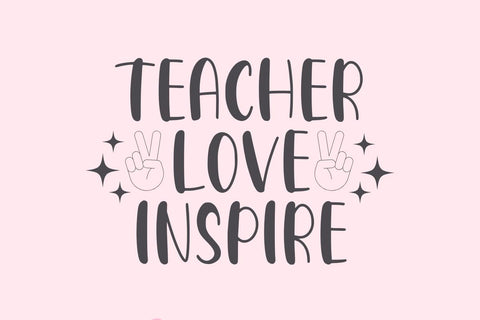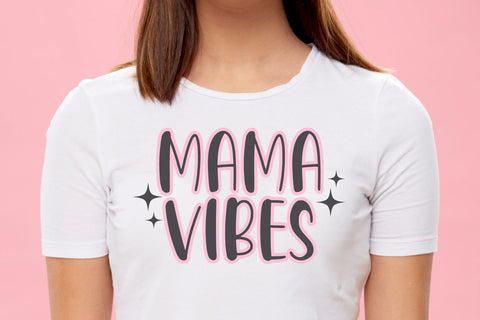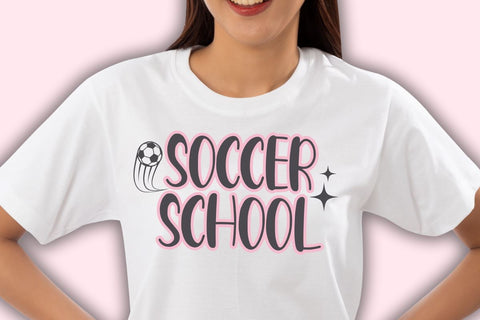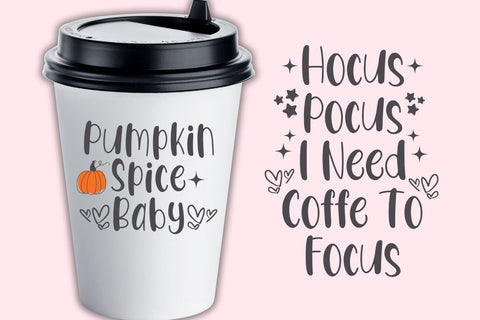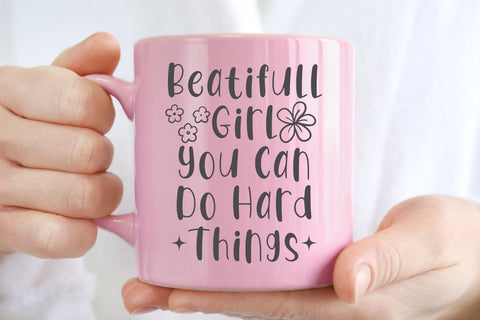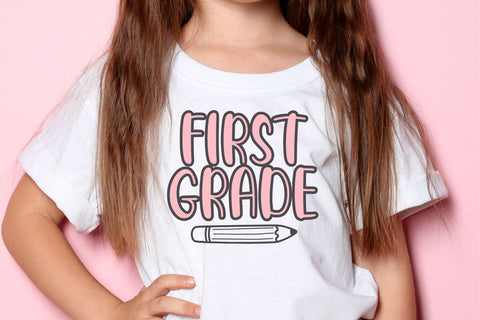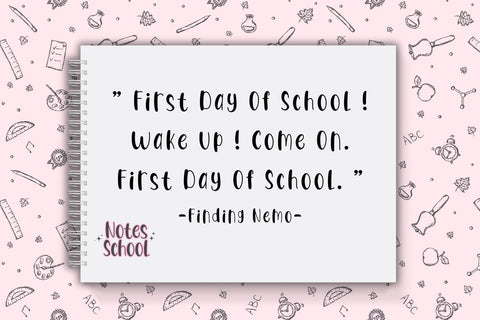
Notes School - Cute Handwritten Font
A Cute Handwritten Font.
This font is cool for quotes, tumblers, mugs, posters, t-shirts, greeting cards, packaging, kids t shirts, decoration
- Upper case
- Lower case
- Numbers & Punctuation